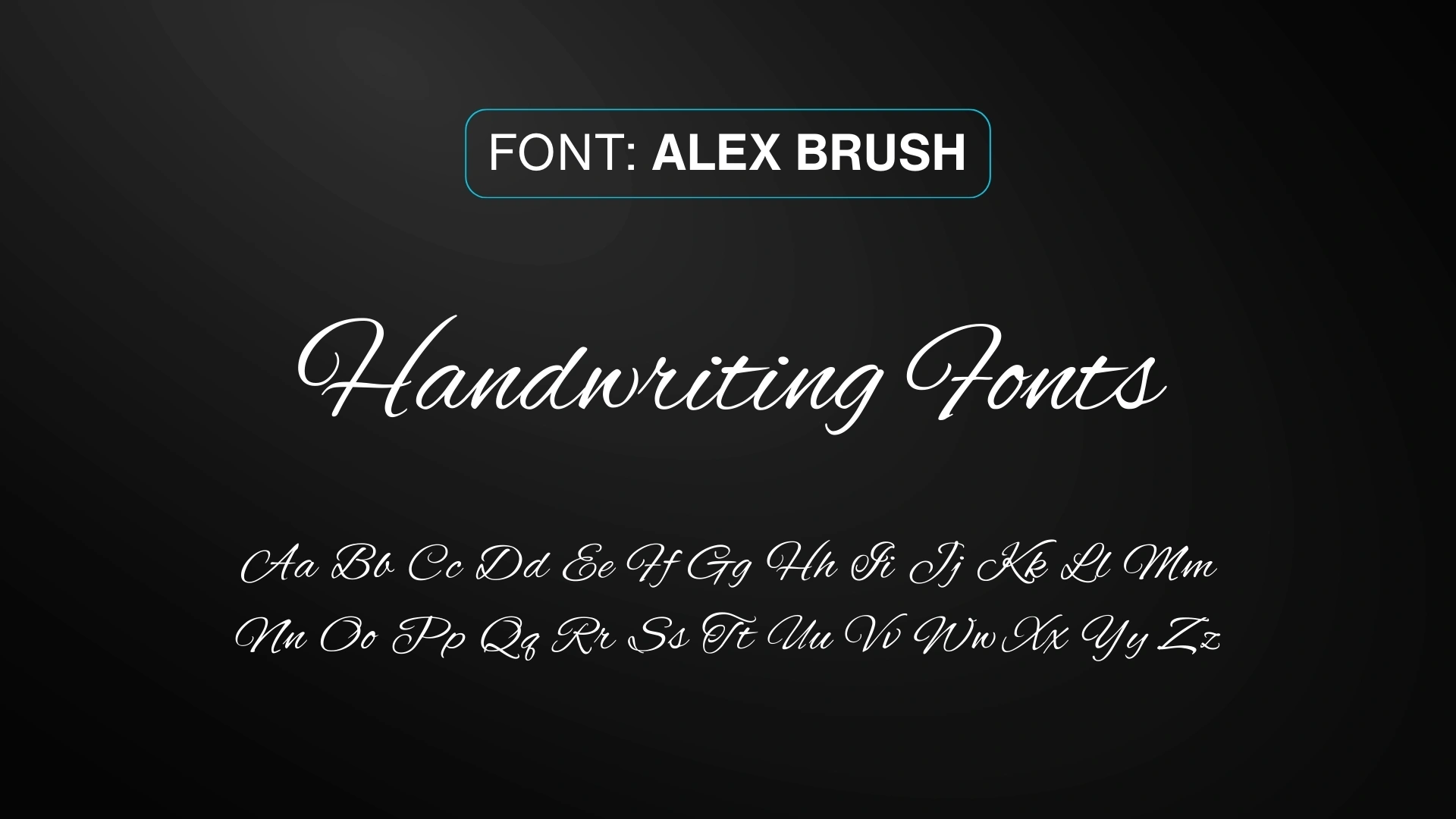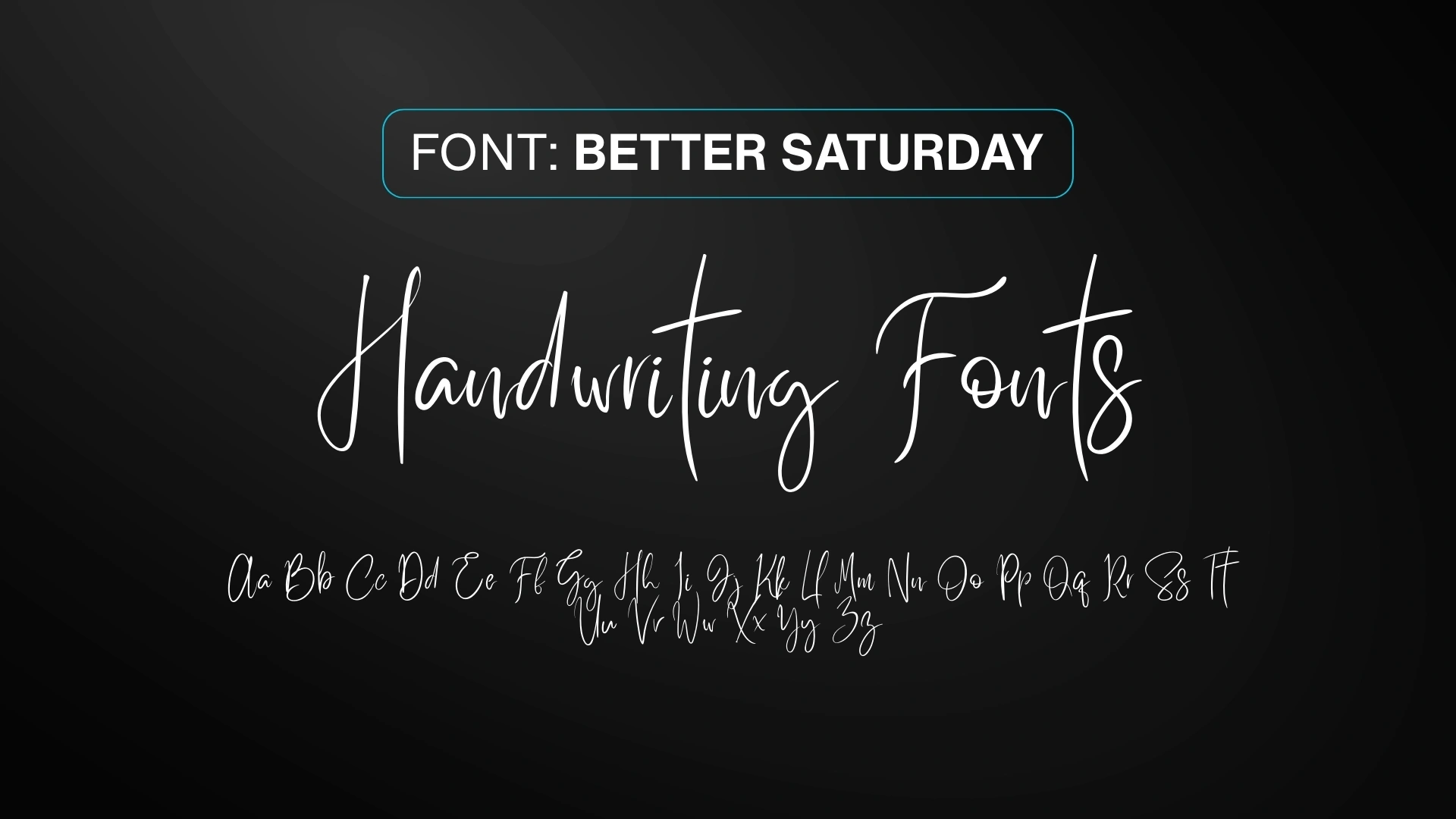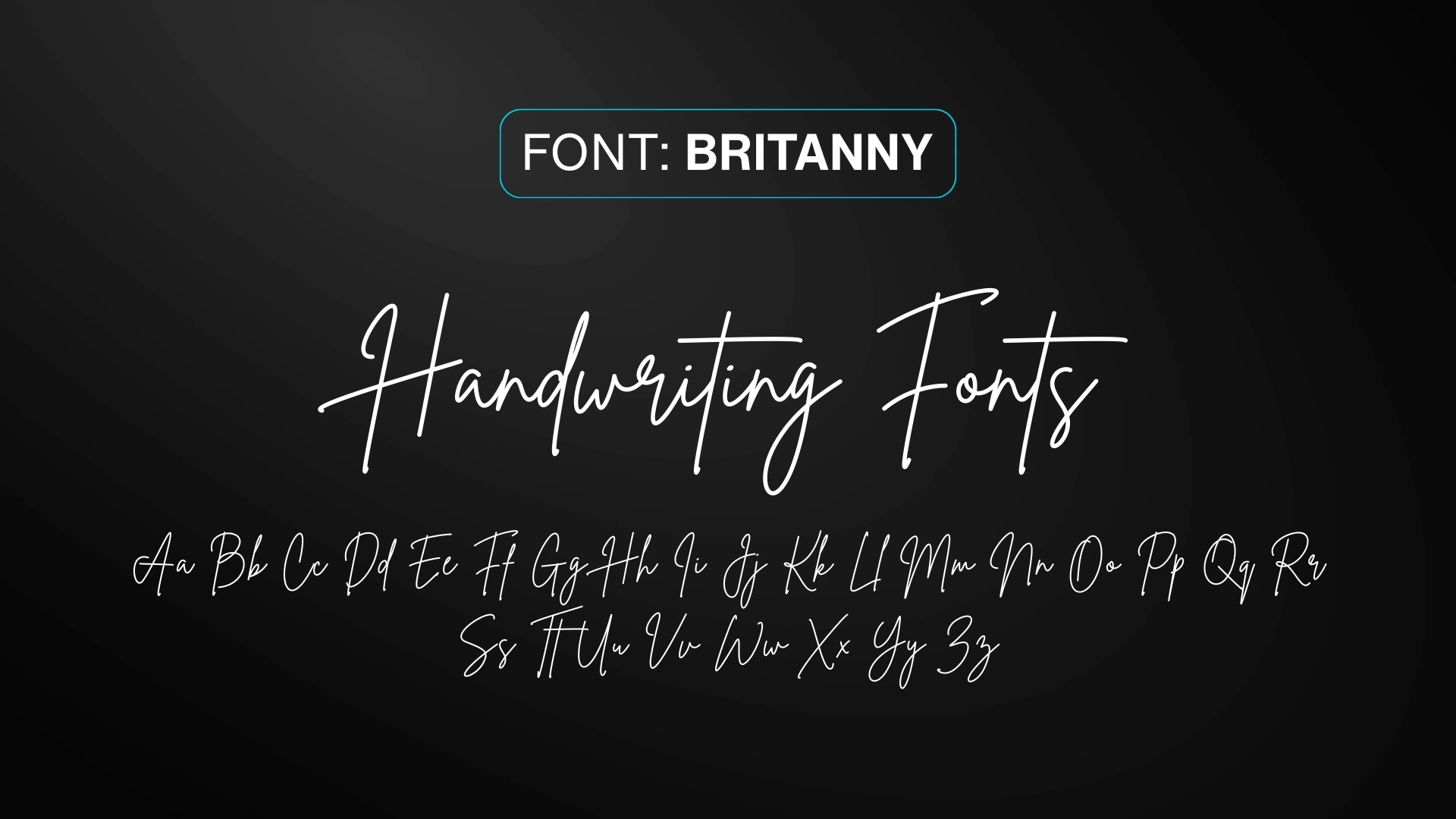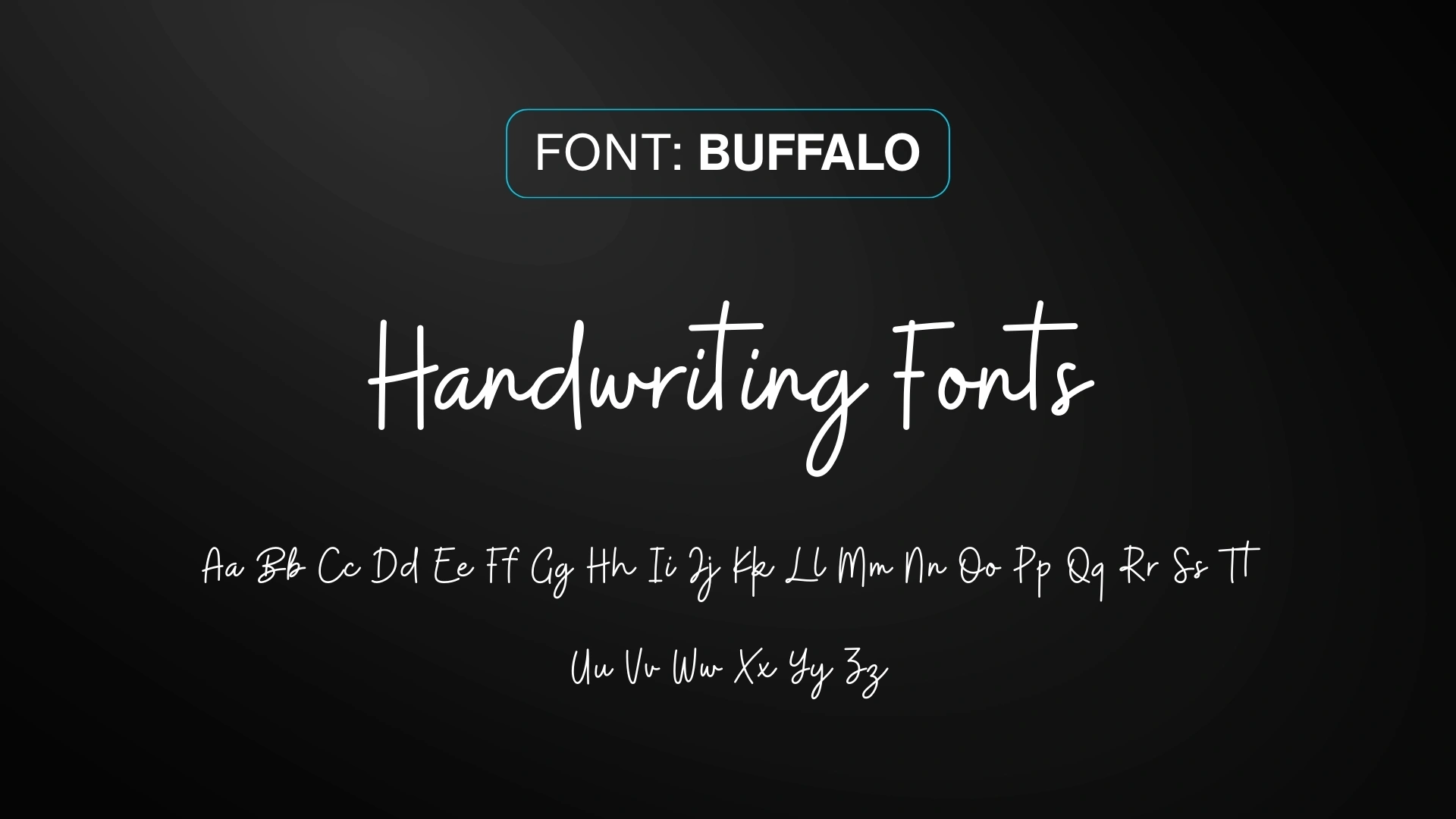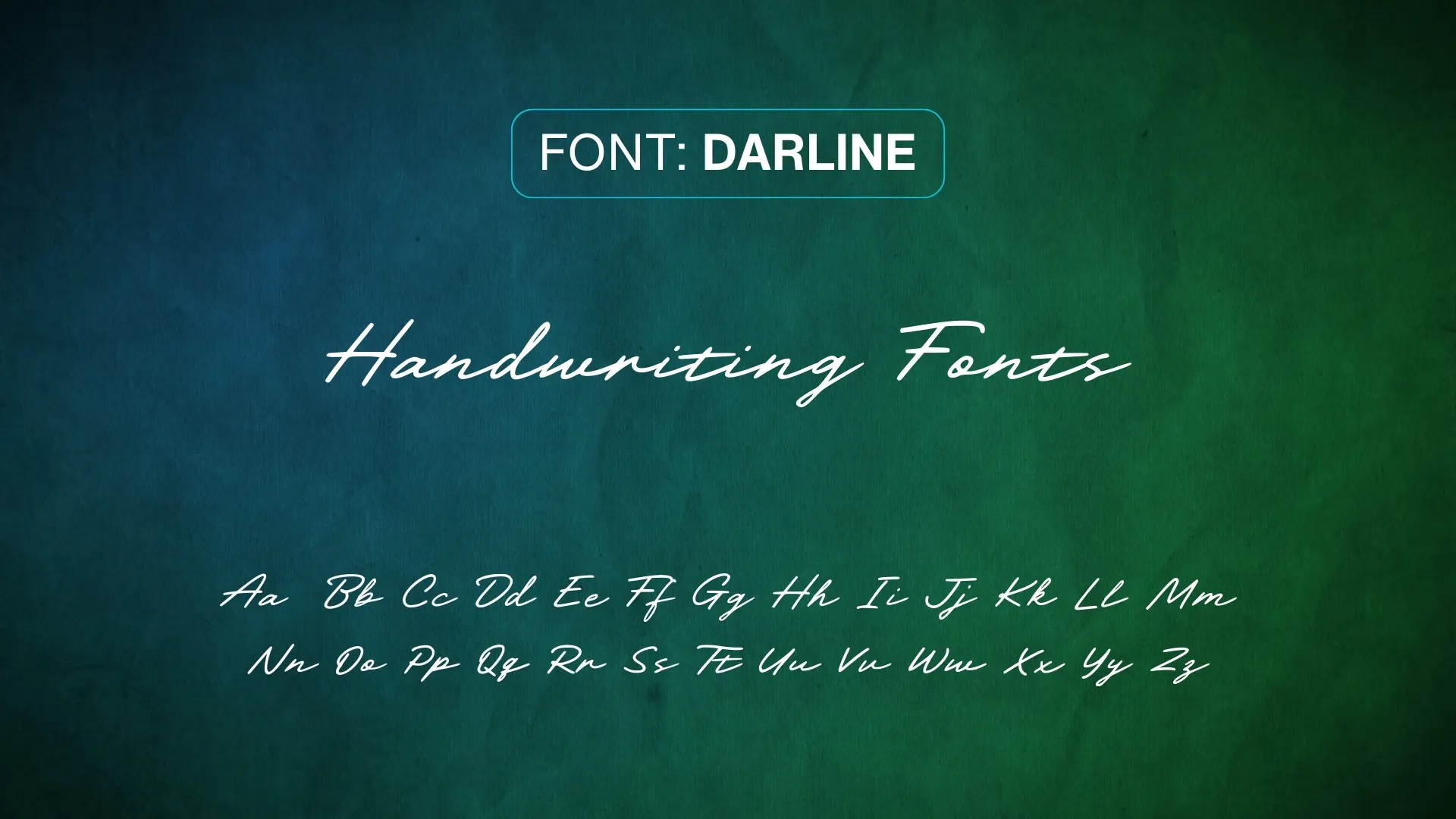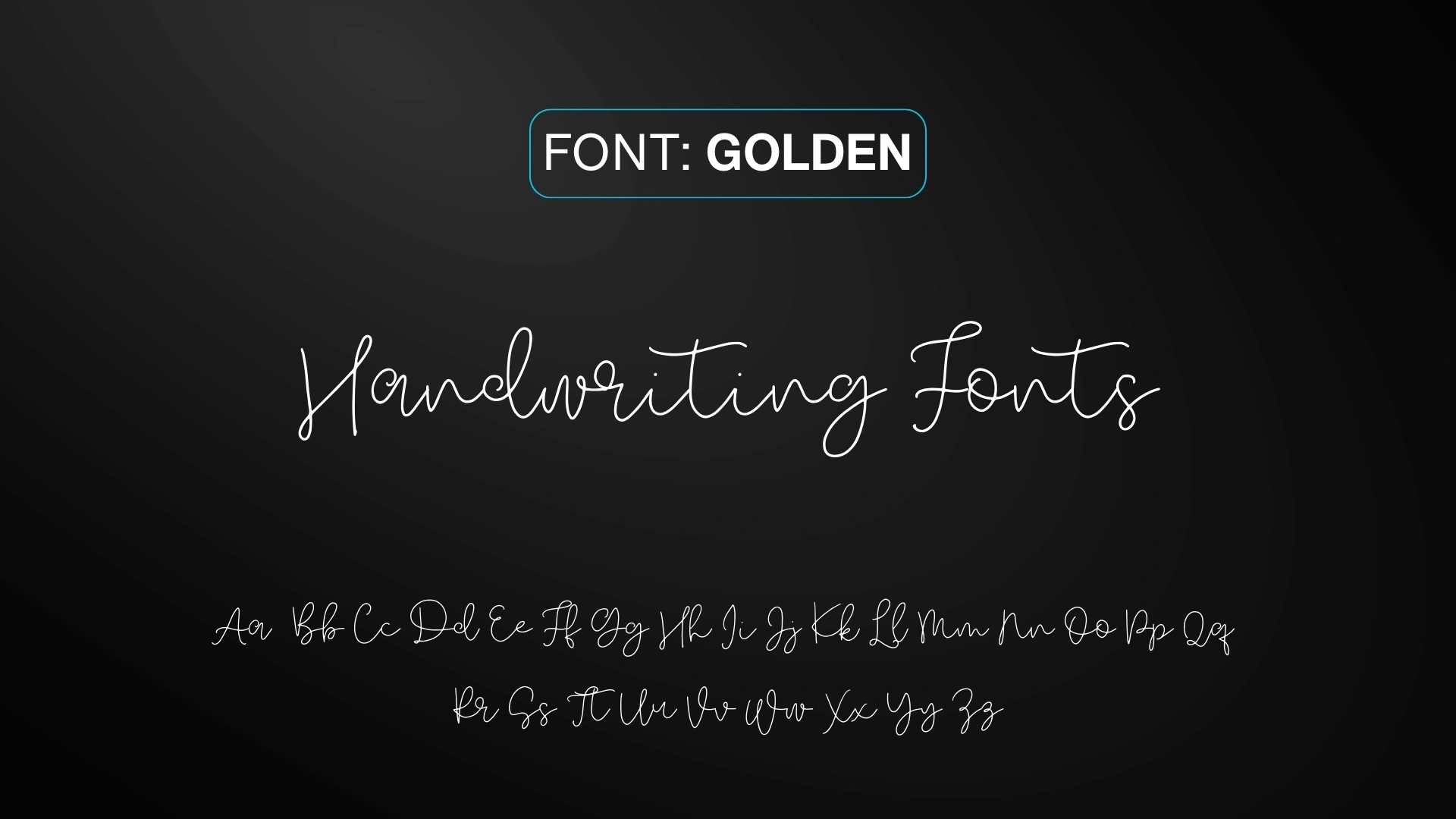
Patrick Hand and Kalam are the best fonts to start with if you want the look of neat, everyday handwriting. Both are easy to read, and both are free on Google Fonts. Patrick Hand is based on its designer’s own handwriting, and Kalam also covers Devanagari. For something closer to a signature, try Alex Brush or Shoreliness Script.
Why Designers Use Handwriting Fonts
Handwriting fonts make a design feel personal. Uneven strokes and organic curves suggest that a person wrote the words, which suits invitations, notes and social posts better than a formal typeface.
Which Font Looks Like Handwriting?
- Neat everyday notes: Patrick Hand, Kalam
- Casual and friendly: Handwritten, Jenna Sue, Buffalo
- Elegant signature style: Alex Brush, Shoreliness Script, Mellisa Handwritten, Keighley Castle Handwritten
- Tall and fashion-led: Britanny, Themysion, Better Saturday
- Bold brush: Holiday
Before you decide, test the font with your real text at the size you will use it. A script that looks lovely in a headline can be hard to read in a small caption.
Handwritten
Style: Casual and flowing, with a natural pen-on-paper feel.
Best for: Invitations, greeting cards, quotes and lifestyle designs.
Darline
Style: Smooth, refined and flowing.
Best for: Wedding and celebration invitations, and salon or boutique logos.
The Skinny
Style: Minimal and light.
Best for: Children’s designs, friendly branding and airy layouts.
Shoreliness Script
Style: Delicate strokes with gentle loops.
Best for: Signature logos, wedding stationery and decorative text.
Patrick Hand
Style: Clean, neat and very readable.
Best for: Notes, educational materials, children’s content and casual branding.
Mellisa Handwritten
Style: Elegant curves with a smooth, expressive flow.
Best for: Logos, wedding designs and signature-style text.
Keighley Castle Handwritten
Style: Refined and graceful.
Best for: Luxury branding, formal invitations and jewellery logos.
Kalam
Style: Friendly and informal, with smooth curves.
Best for: Educational content, storytelling graphics and warm designs.
Jenna Sue
Style: Playful, with a soft, friendly flow.
Best for: Lifestyle branding, blogs and short sayings.
Buffalo
Style: Modern, with balanced strokes and a friendly flow.
Best for: Casual branding, social media posts and invitations.
Handsome
Style: Classic, with smooth strokes.
Best for: Titles and short quotes that need a timeless feel.
Alex Brush
Style: Classic brush script with smooth, refined curves.
Best for: Elegant branding, certificates and decorative titles.
Themysion
Style: Tall, dramatic and very stylish.
Best for: Fashion and luxury branding, and bold Instagram graphics.
Holiday
Style: Bold brush style with energetic strokes.
Best for: Posters, travel themes and social media graphics.
It depends on the handwriting you want to match. Patrick Hand and Kalam look like neat notes, and Alex Brush looks more like formal script. Compare a few with your own text.